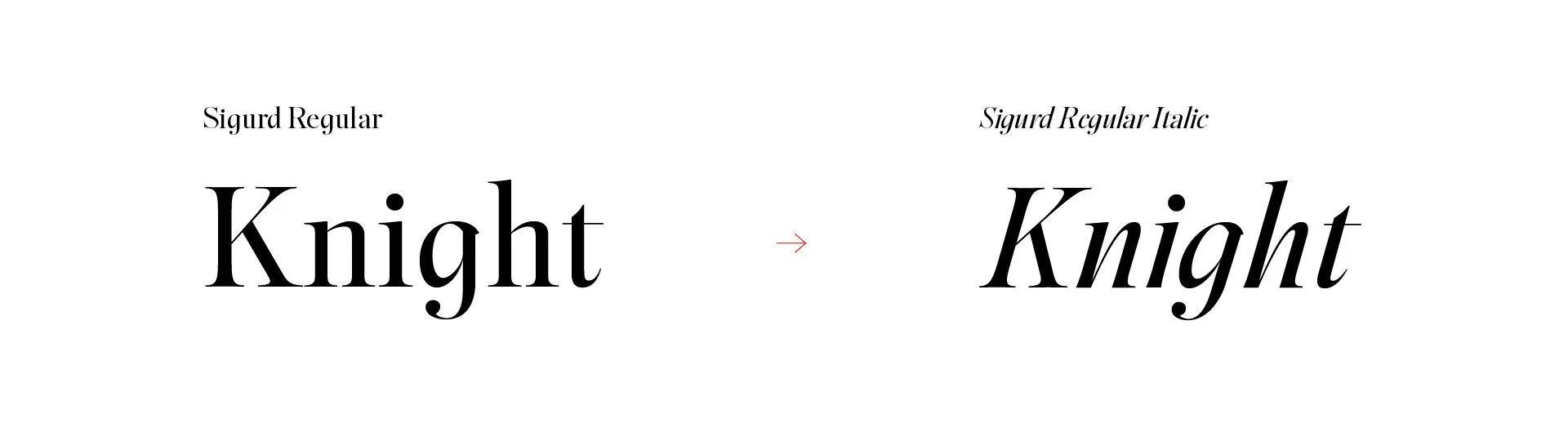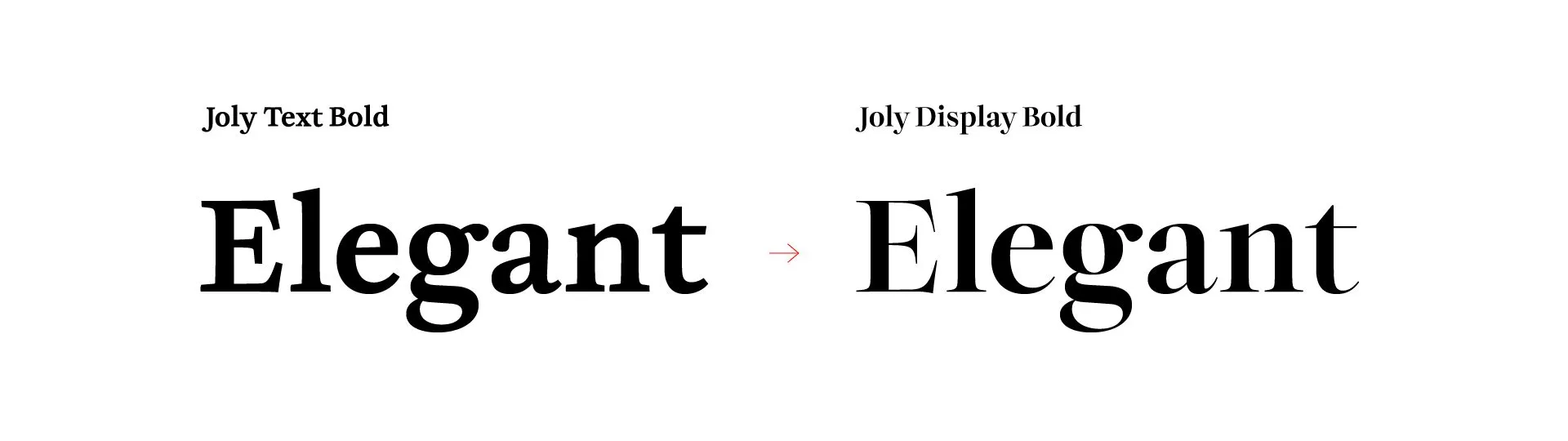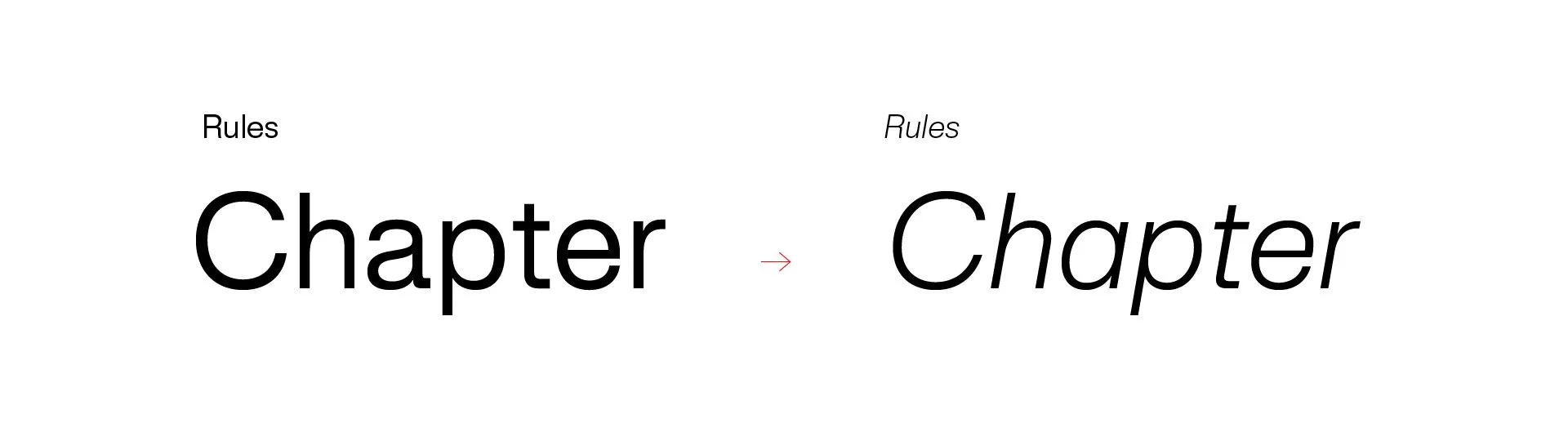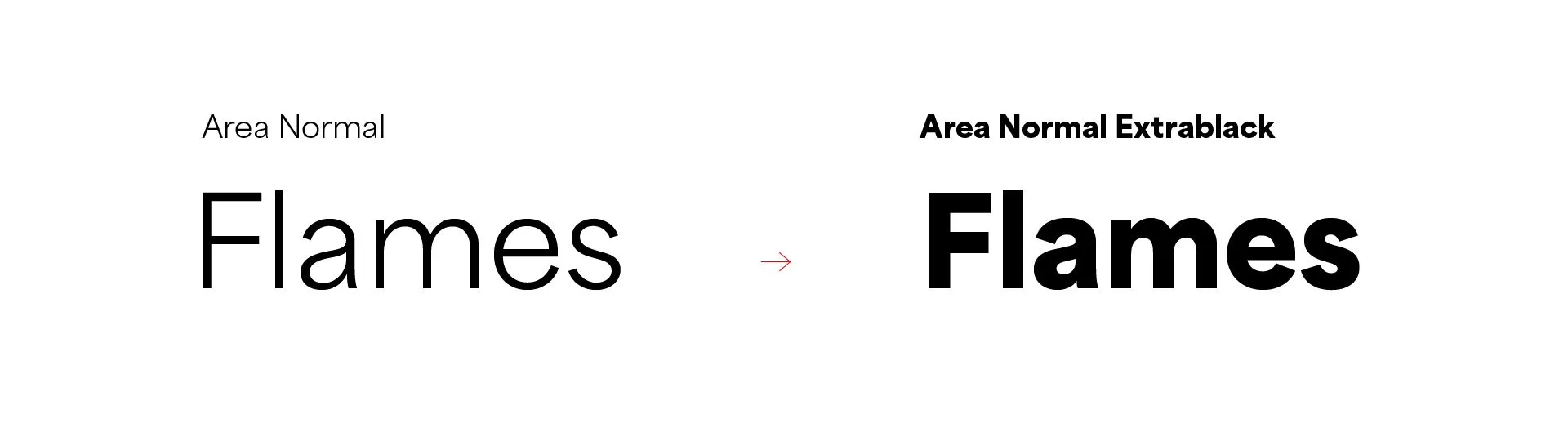
Variable Font
Variable font: OpenType toolbox
Typography has undergone many revolutions over more than a century: lead typesetting, Linotype, Monotype, phototypesetting, digital, and so on. This latest technology has made its latest turnaround, seeking to reduce the number and weight of files for unprecedented flexibility and efficiency.
Historically, typography has been constrained by the limitations of static font files expressing separate criteria: its slant (roman, italic), its width (from compressed to extended), and also its weight (hairline to extra black). This resulted in a proliferation of font files and complexity in managing typographic variations.
The concept of variable fonts traces back to 1994 when TrueType GX, a font technology developed by Apple, introduced the idea of multiple font variations within a single font file. However, it wasn't until the early 2010s that the concept gained significant traction within the type design community, probably because OpenType font files became the norm.
In 2016, major type foundries and software developers collaborated to propose the OpenType Font Variations format, laying the groundwork for standardized variable font technology. This initiative aimed to streamline font management and improve typographic flexibility across different platforms and devices.
The year 2016 marked a significant milestone with the release of the first variable font prototypes and demonstrations, showcasing the potential of this technology to revolutionize typography. As momentum grew, type designers and developers embraced variable fonts as a game-changing advancement in digital typography.
In 2017, the Variable Font Format specification was officially ratified by the OpenType Working Group, cementing its status as an integral part of the OpenType font format. This standardization paved the way for widespread adoption of variable fonts across various design applications and digital platforms.
Since then, variable fonts have continued to evolve, with ongoing advancements in technology and adoption by designers and developers worldwide. Today, variable fonts are recognized as a fundamental tool for typographic innovation, offering designers unprecedented flexibility, efficiency, and creative freedom in font design and usage.
The benefits of variable fonts for designers are manifold:
1. Flexibility
Variable fonts offer designers unprecedented control over typographic elements. They can dynamically adjust font attributes like weight, width, and slant, allowing for fine-tuned customization to suit specific design requirements.
2. Efficiency
By consolidating multiple font styles into a single file, variable fonts streamline the design process and reduce the need for managing numerous font files. This results in faster workflow and improved productivity for designers.
3. Web performance
Web Performance: Variable fonts contribute to enhanced web performance by reducing the number of font files required for a web project. This leads to faster load times and smoother rendering, ultimately improving user experience and engagement on websites.
4. Creative Freedom
Variable fonts unleash a new level of creative expression for designers. They enable fluid transitions between font styles, facilitate experimentation with custom variations, and inspire innovative typographic designs that push the boundaries of creativity.
5. Versatility
Variable fonts are highly adaptable across various platforms and devices, making them ideal for responsive design projects. They ensure consistent typography across different screen sizes and resolutions, without sacrificing visual quality or performance.
6. Hybrid Fonts
Variable fonts allow designers to create hybrid font families that combine multiple styles or genres into a single font file. Designers can blend characteristics from different typefaces, such as serif and sans-serif, script and display, or traditional and experimental, to create unique and distinctive typographic voices. In a nutshell, the type designer is now designing a system and not only shapes.
7. Optical Adjustments
Variable fonts enable designers to incorporate optical adjustments into their typefaces, ensuring optimal legibility and aesthetic quality across different sizes and viewing conditions. Designers can fine-tune font outlines, spacing, and other parameters to optimize readability and visual appearance at various text sizes.
Overall, variable fonts offer type designers a vast playground for creativity and experimentation, empowering them to push the boundaries of typographic design and craft innovative typefaces that inspire and delight audiences. With their unparalleled flexibility and versatility, variable fonts represent a new frontier in digital typography, driving forward the evolution of visual communication in the digital age.